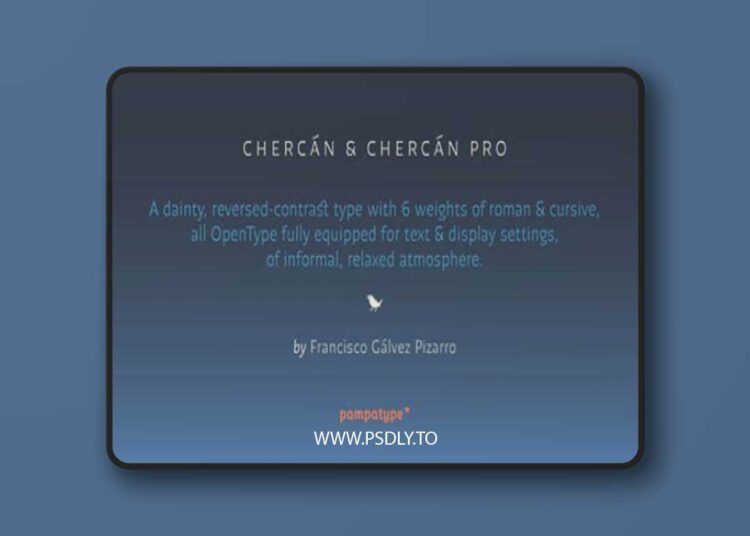
Chercán is a spirited typeface created with a delicate sense of how readability doesn’t need to be dull. Chercán wears a uniquely friendly voice, and its mature design makes it highly legible in small bodies as well as in the distance. Its balanced rhythm is the result of a slow pairing of qualities found in old classics admired by Gálvez, such as Copperplate by Frederic Goudy (1905) and Antique Olive by Roger Excoffon (1962).
Chercán occupies a unique place in the contemporary type design shelf, by exquisitely combining versatility and elegance. Due to the delicate grey colors it gains within long texts, Chercán is good for immersive reading, where one want to avoid readers’ eyes fatigue.
It can be a great choice for setting texts that require a slightly informal atmosphere without loosing authority. Chercán is the Chilean name for the melodious little bird ‘Troglodytes aedon’ usually found all across the Americas. Available in Std and Pro versions with all the usual OT features, Chercán addresses all modern needs of the demanding typographer..